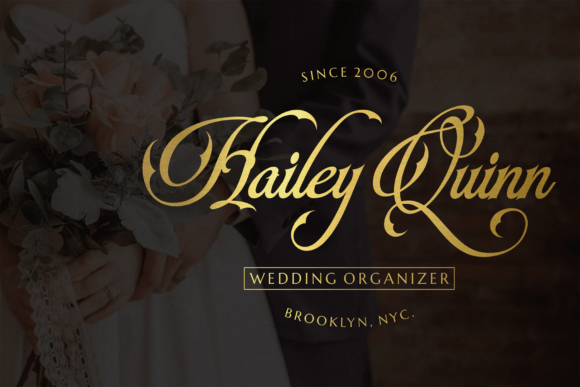
Alegarde Font: Elegant Script for Wedding Invitations & Branding
About the Alegarde Font
The Alegarde Font is here to transform your projects with its distinctive character and style. Alegrade is a classic script font inspired by old copper plate fonts with a little added spire at the ends of the strokes to make it a bit more gothic. Apart from being classic, this font is also elegant, so it does not rule out simple and elegant modern designs. It will also be very beautiful for writing letters or as a wedding font such as an invitation or the name of the bride and groom.
Alegarde excels in applications requiring a touch of refined elegance, such as wedding stationery, logos for luxury brands, or short-form text in high-end brochures. Its graceful curves also make it suitable for select headlines or short quotes within a larger design. However, its intricate detailing makes it less than ideal for body text or UI elements where readability is paramount. Small sizes will lose detail and impact.
Pairing Alegarde effectively requires a contrasting but complementary font. A clean sans-serif like Montserrat or a modern geometric sans-serif such as Futura would provide a strong counterpoint, enhancing its classic appeal. For a warmer feel, a serif like Garamond or a slightly more playful script font (but one with less pronounced flourishes than Alegarde itself) could also work well.
Alegarde projects an air of sophisticated elegance, conveying a sense of timeless quality and refined taste. It’s best suited for brands aiming for a classic, luxurious image, emphasizing tradition and craftsmanship.
Alegarde Font Usage Examples
Alegarde Font Example